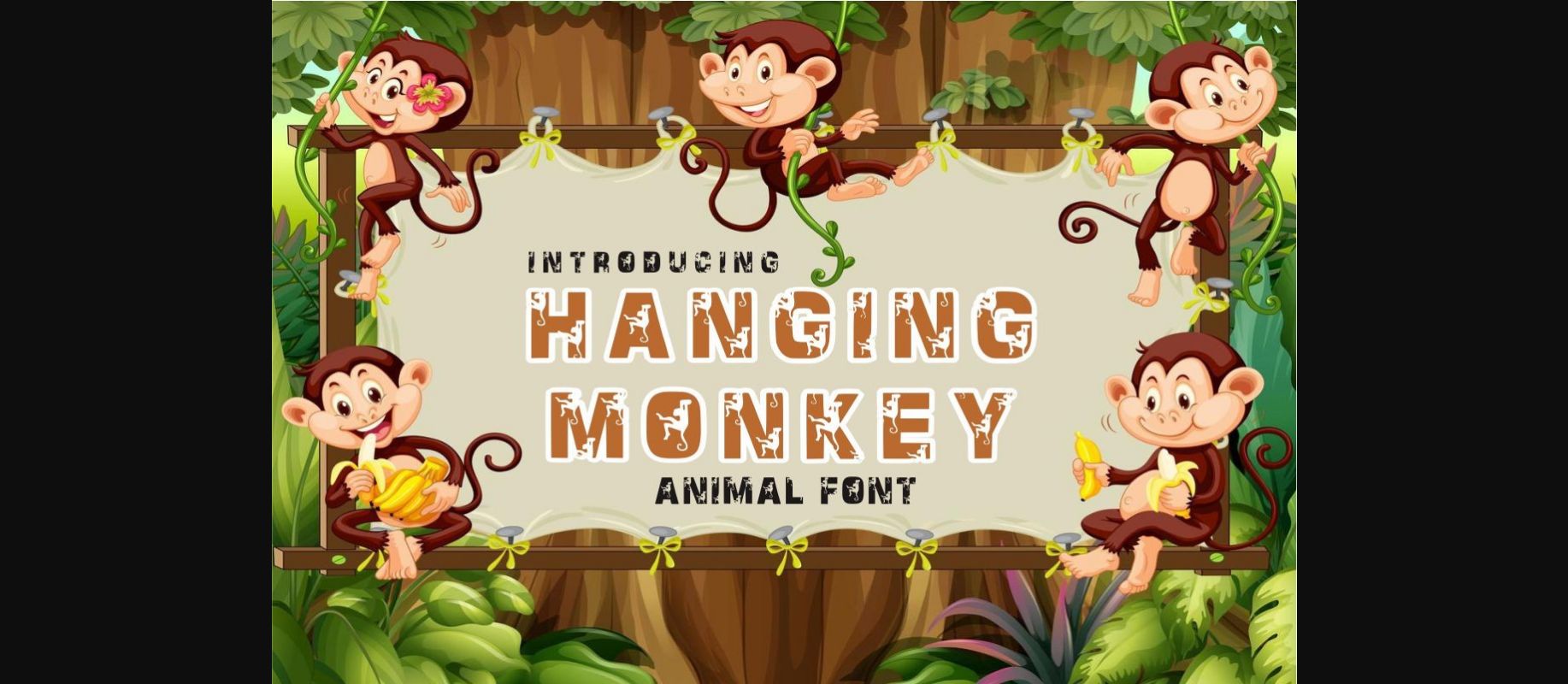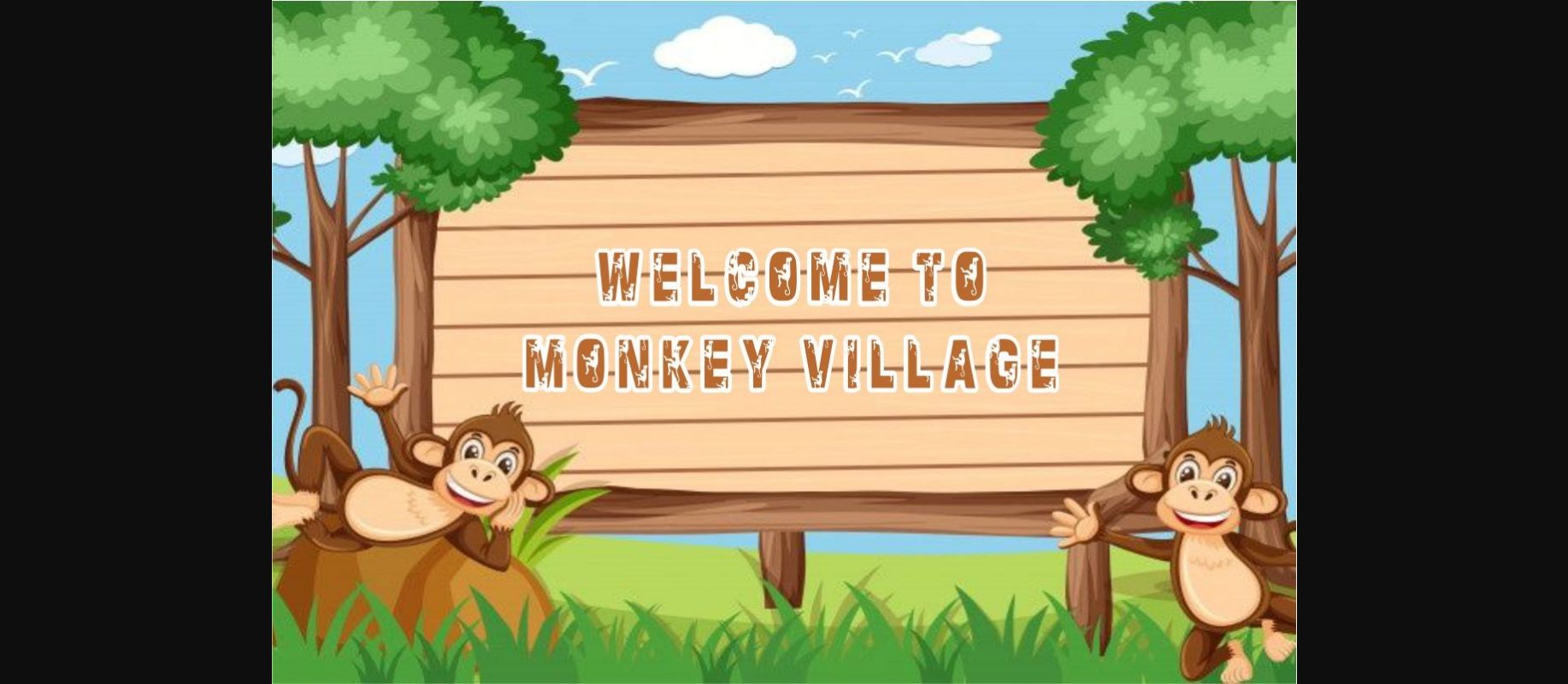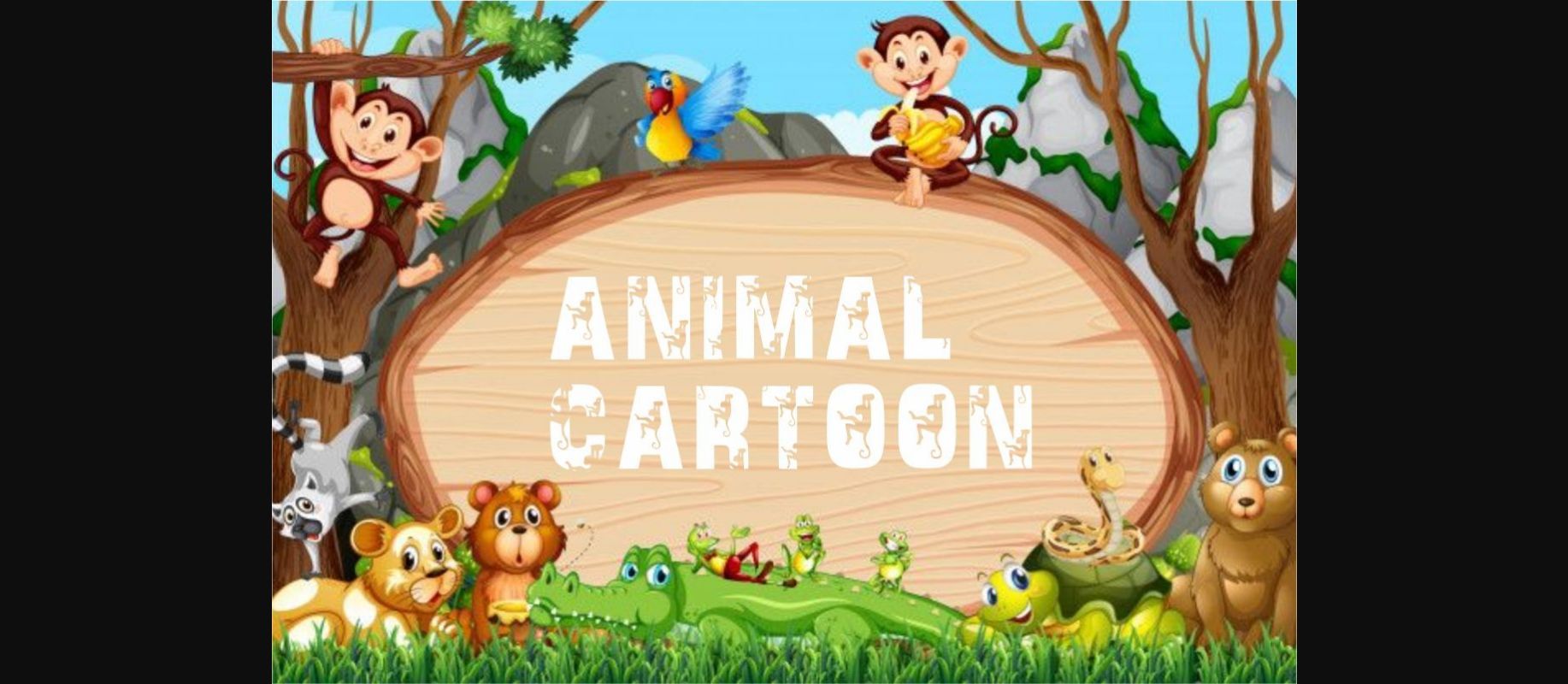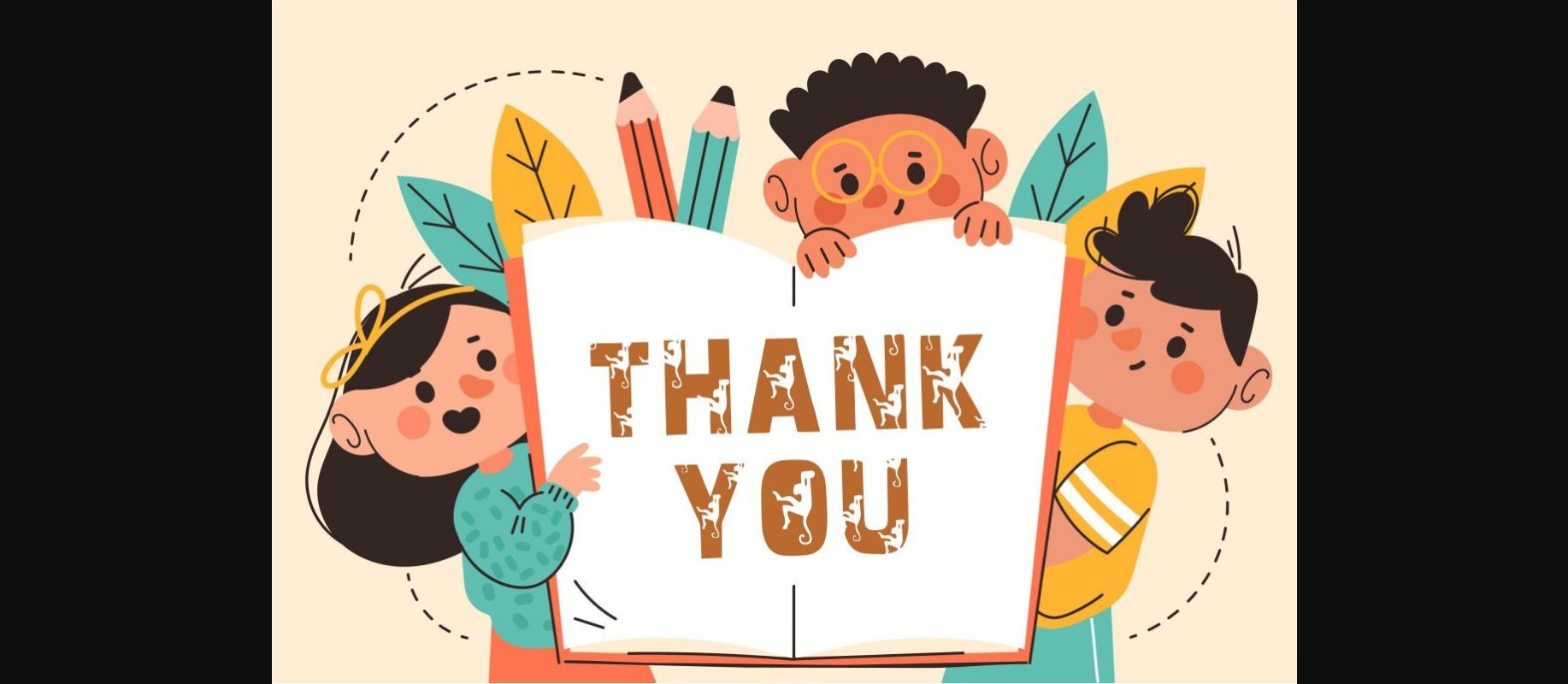
About Hanging Monkey Font
Hanging Monkey is a cool, unique, and attractive decorative font. It embodies fun and authenticity is the perfect choice for kids’ activities or school projects and clothing designs. This font is monkey shaped which means you can access all the glyphs and sweeps easily!